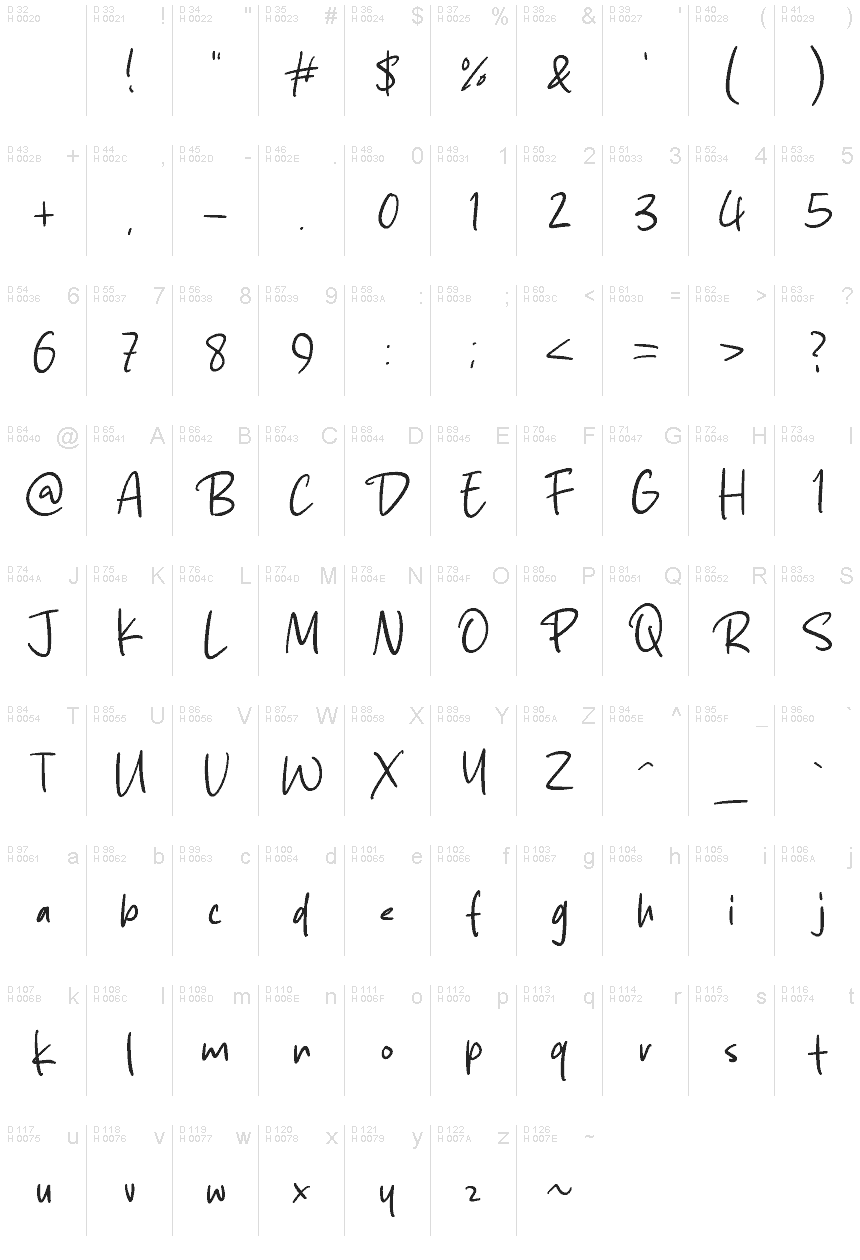
Sky Landing
Sky Landing font by MJType captures the easygoing style of casual handwritten designs. This modern free handwritten font is highly expressive and legible, with a relaxed appearance that finds use in multiple projects. The approachable appearance of the letters arises from their imperfect shapes which capture a touch of human warmth and emotions.
Sky Landing font naturally fits branding and packaging designs, posters, book covers, brochures, advertisements, product labels/tags, invitations, stationery elements like business cards and letterheads/logos as well as typographic artwork for social media platforms.